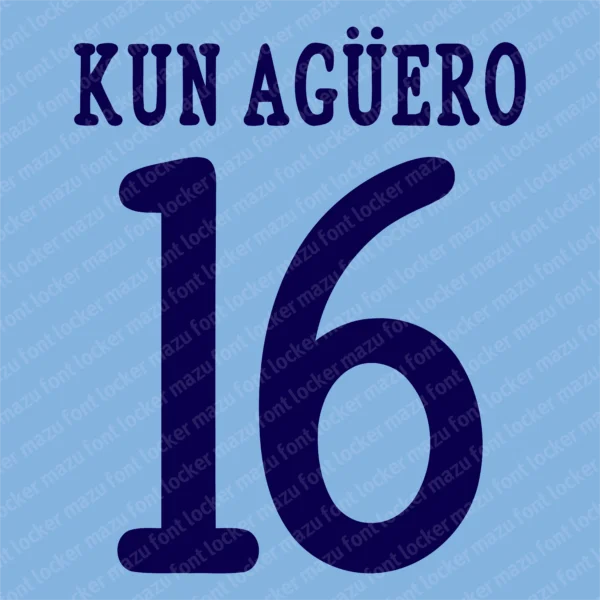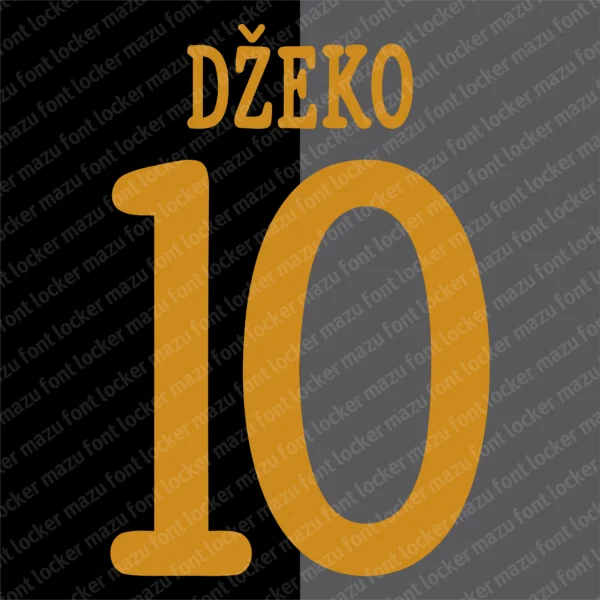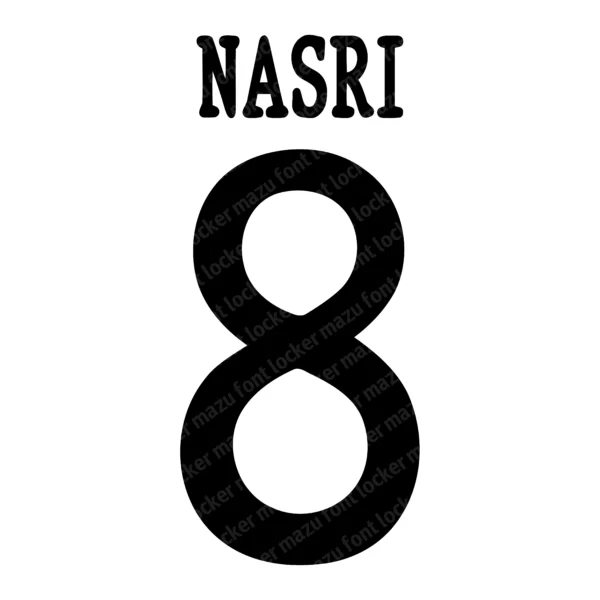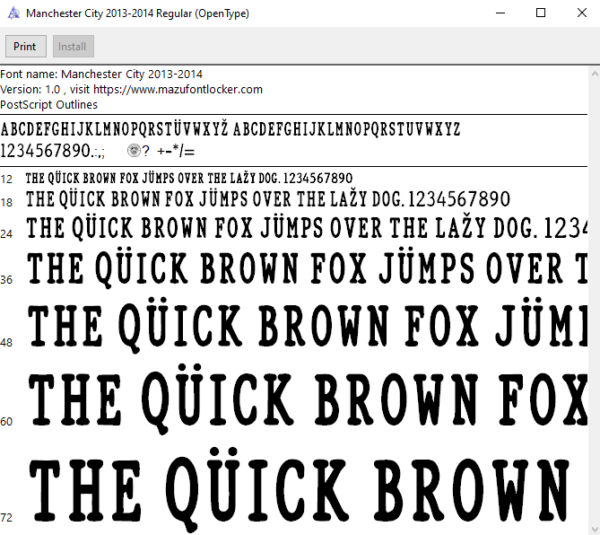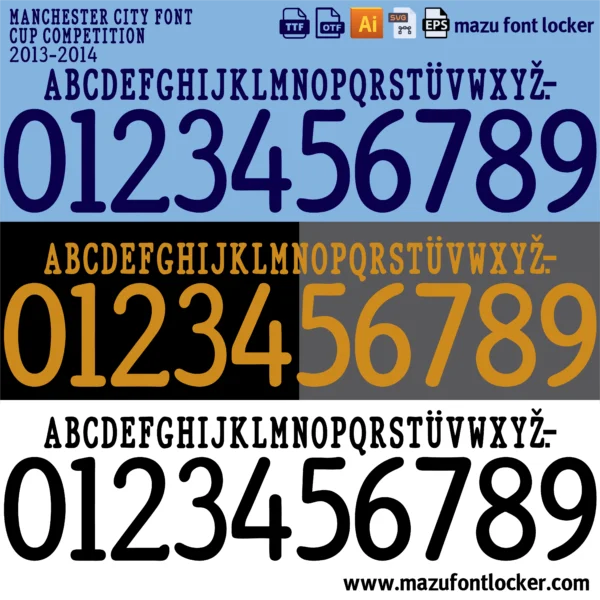
Manchester City 2013-2014 Font Vector – Bold Citizens Epic Artwork
Manchester City 2013-2014 Font Vector – Authentic Citizens Typeface
The Manchester City 2013-2014 Font Vector is a premium typeface that accurately recreates the official match lettering worn by Manchester City during the triumphant 2013-2014 Premier League season. This high-quality vector font kit captures the bold, modern, and clean typography that represents one of the most dominant campaigns in the club’s recent history.
This font stands out because of its sharp vector details and strong club identity. Every letter and number is crafted to match the exact style used on the players’ shirts during the 2013-2014 season. Whether you are making realistic kit templates or nostalgic football content, the Manchester City 2013-2014 Font Vector gives your designs that authentic Citizens look.
The letterforms in the Manchester City 2013-2014 Font Vector are tall, bold, and highly readable. The strokes have a strong, clean weight with excellent edge definition that looks powerful on the back of jerseys while maintaining modern elegance and clarity.
• Full uppercase A–Z and numbers 0–9 in authentic Manchester City 2013-2014 style
• Special Manchester City crest glyph for accurate shirt number detailing
The Manchester City 2013-2014 Font Vector is an independently designed typeface package. It is carefully crafted to replicate the official shirt lettering style of the 2013-2014 season. This font kit is perfect for creative projects, fan edits, nostalgic jersey designs, and custom football graphics.